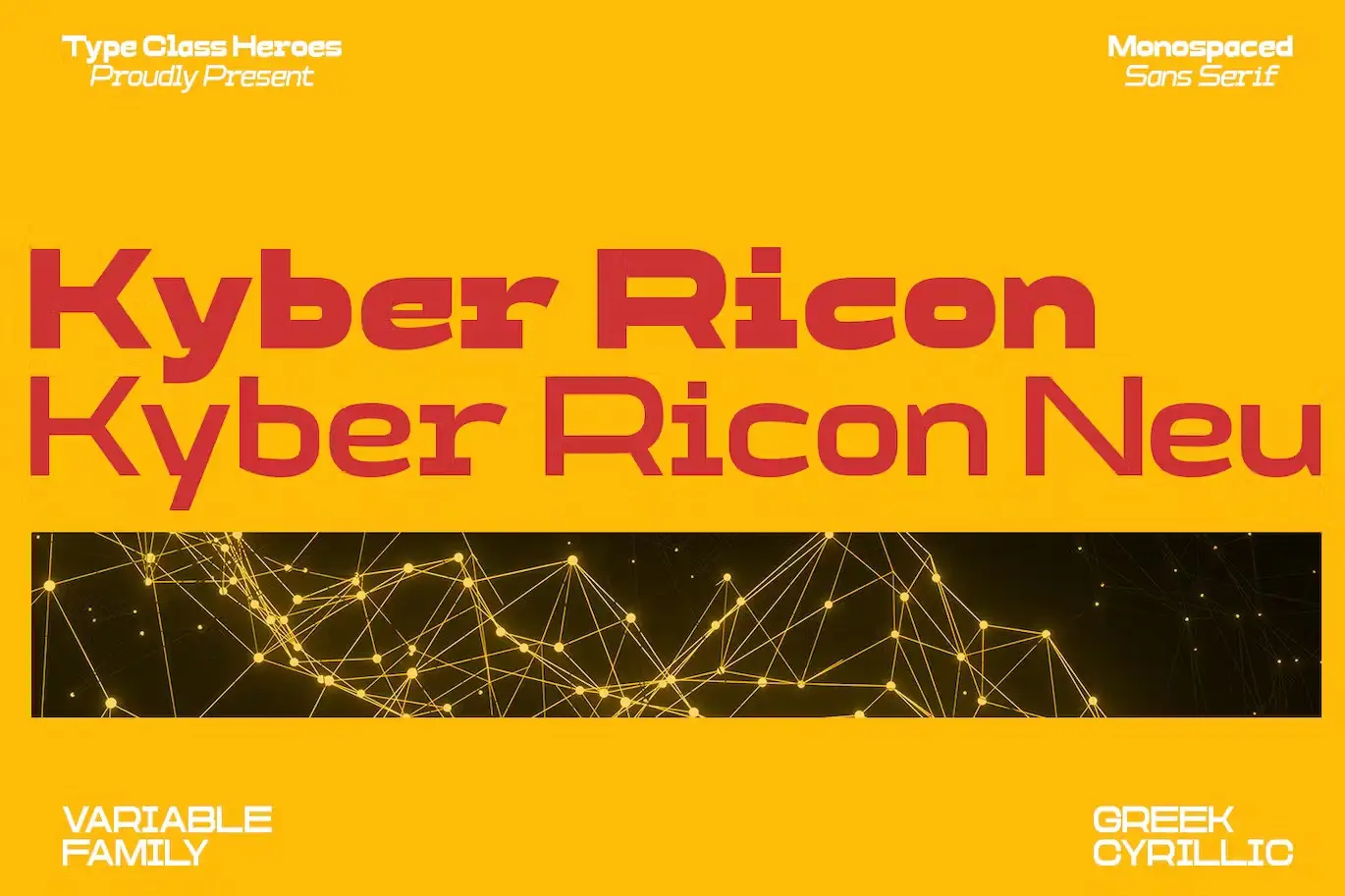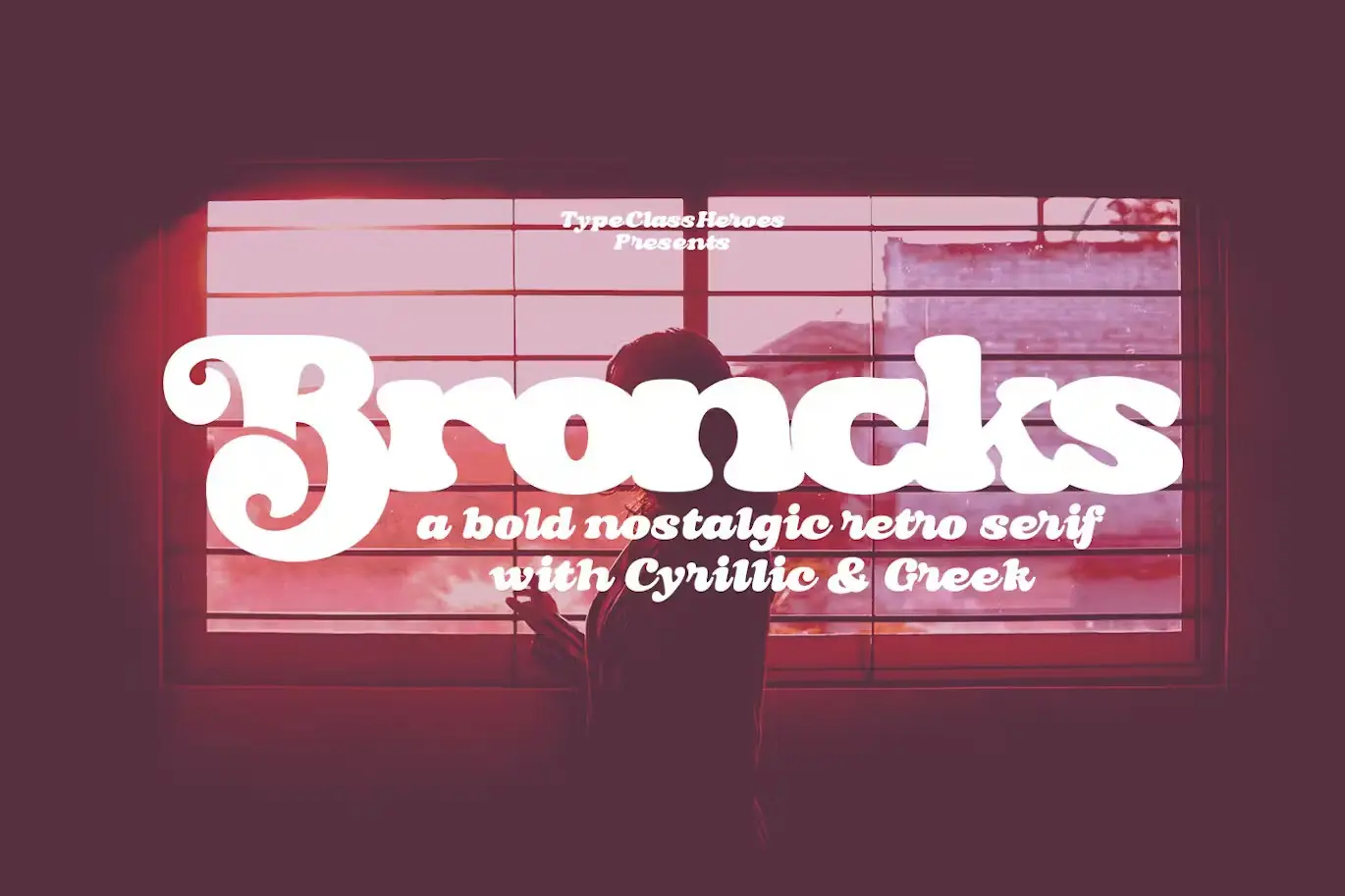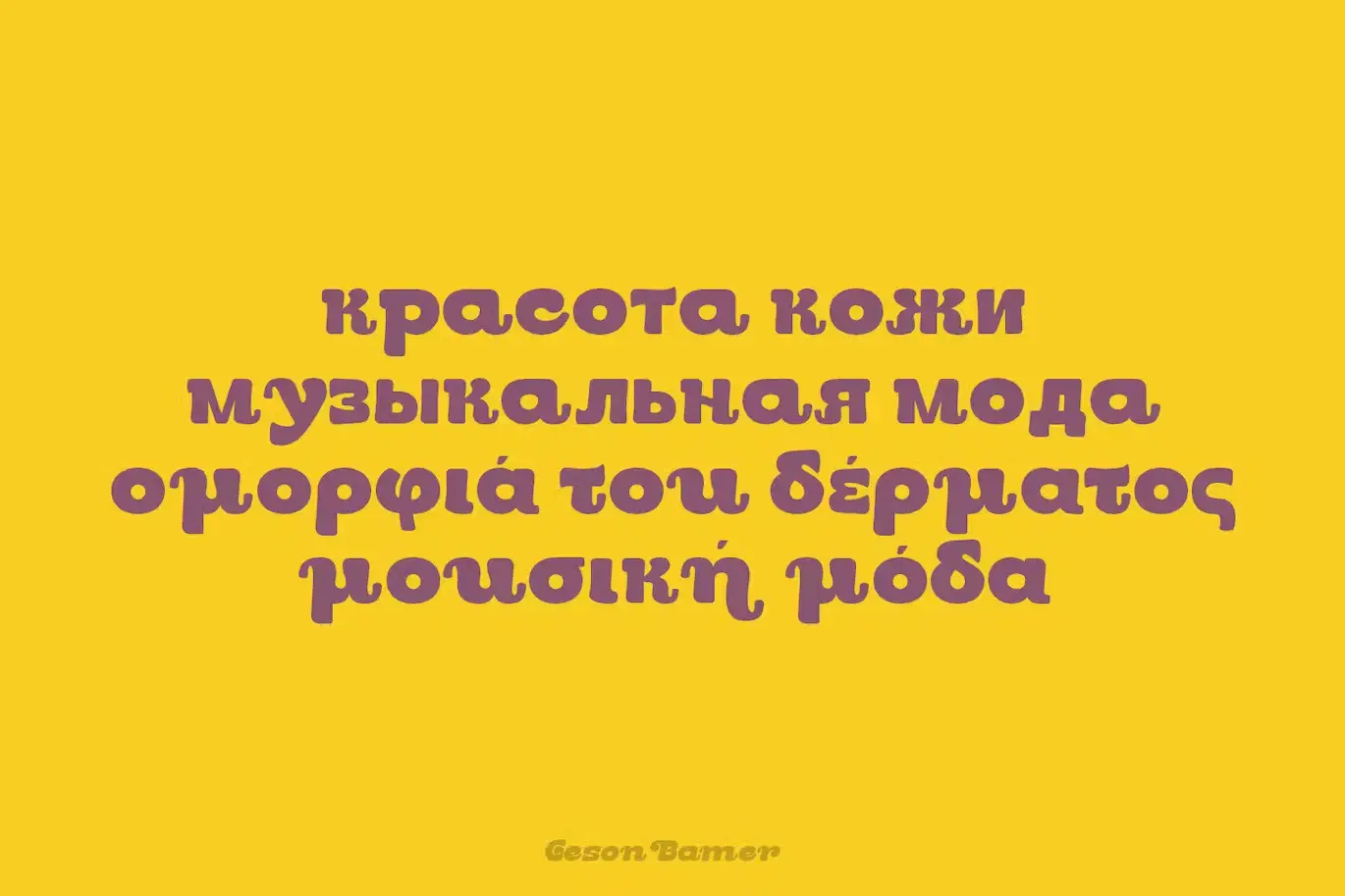
Three Distinct Fonts, Infinite Creative Possibilities
Step into a world where vintage charm meets modern precision. The TypeClassHeroes Creative Bundle brings together three carefully selected typefaces that cover everything from clean monospaced layouts to nostalgic serif statements. Whether you’re crafting a brand identity, designing a magazine spread, or building a retro-inspired poster, this bundle gives you the tools to make your text stand out with personality and clarity.
What’s Included in This Bundle?
Bundle Description
This collection is designed for graphic designers, branding specialists, and typography enthusiasts who appreciate both structure and character. The Kyber Ricon family brings precision and consistency, while Broncks Retro and Gosen Bamer add warmth and nostalgia. Together, they cover a wide range of use cases—from tech-forward projects to throwback campaigns. OpenType features are supported across all fonts, giving you access to ligatures, alternates, and multilingual support including Cyrillic and Greek.